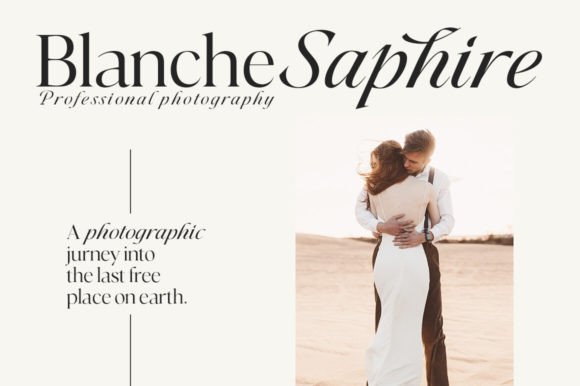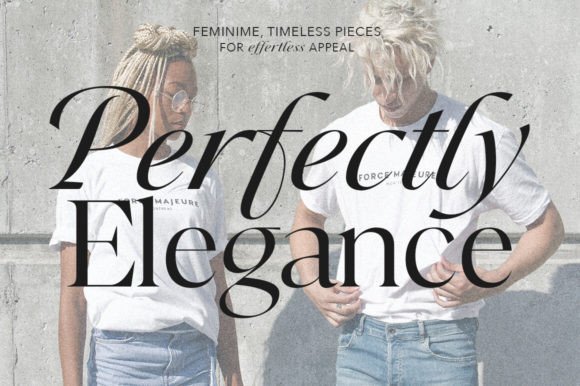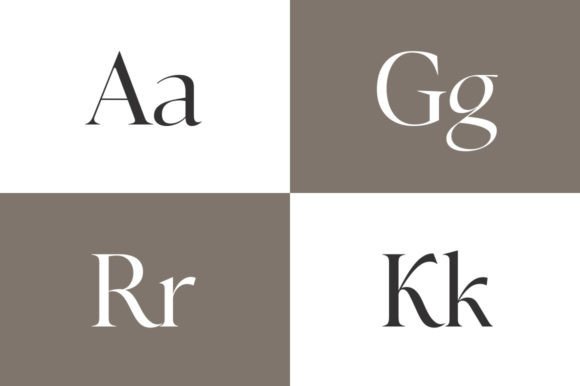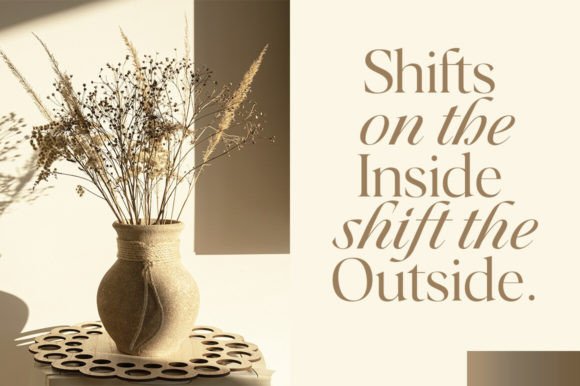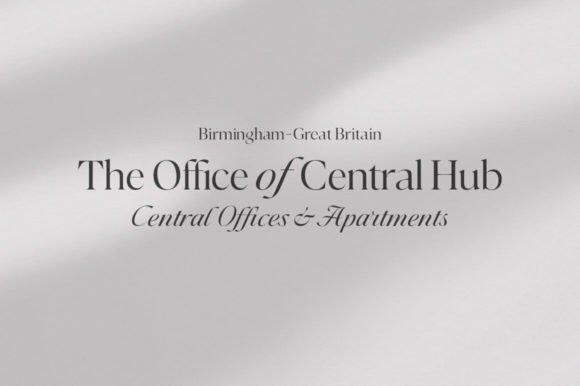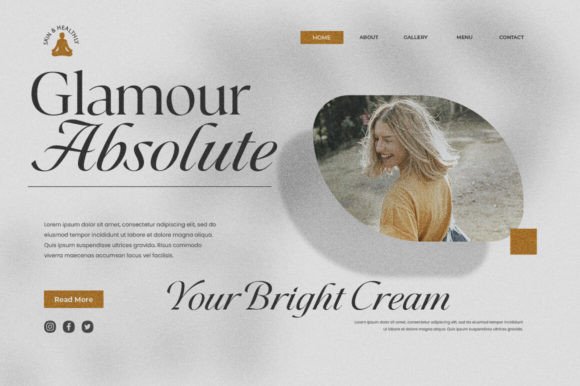
Discover the Elegance of Calserif Font: A Perfect Blend of Classic and Contemporary Design
In the world of typography, fonts play a crucial role in conveying the tone and aesthetic of a design. For designers and crafters looking for a font that combines the timeless elegance of serif fonts with the fluidity of calligraphy, Calserif Font is an excellent choice. This unique font family merges classic elements with modern designs, offering two distinct versions: regular serif styles and italic calligraphy styles.
What is Calserif Font?
Calserif is a thoughtfully crafted font family that brings together the traditional appeal of serif fonts and the artistic flair of calligraphy. This blend allows designers to create works that are not only nostalgic but also clean and elegant. The Calserif Font family includes two main styles:
• Regular Serif Styles: These are perfect for designs that require a classic touch. The serif elements provide a sense of tradition and reliability, making them suitable for a wide range of applications, from editorials to packaging.
• Italic Calligraphy Styles: For projects that need a bit more flair, the italic calligraphy styles offer a beautiful, flowing script that adds elegance and sophistication. These styles are ideal for headlines, invitations, and any design that aims to make a statement.
Key Features of Calserif Font
The Calserif Font stands out for several reasons:
• Versatility: With its two distinct styles, Calserif offers versatility that can cater to a wide array of design needs. Whether you’re working on a magazine, a logo design, or an invitation, this font family has got you covered.
• Elegance: The combination of serif and calligraphy elements gives Calserif an inherently elegant feel. This makes it perfect for designs that aim to convey sophistication and class.
• Readability: Despite its elegant and somewhat ornate appearance, Calserif maintains excellent readability. This is crucial for body text and longer content, ensuring that your message is conveyed clearly.
• Uniqueness: In a sea of commonly used fonts, Calserif offers a unique alternative that can help your designs stand out. Its distinctive blend of styles can add a memorable touch to your work.
Use Cases for Calserif Font
The applications for Calserif Font are vast and varied. Here are some of the most popular use cases:
• Headlines and Titles: The italic calligraphy styles of Calserif are particularly effective for headlines and titles, offering a captivating way to grab attention.
• Magazines and Editorials: For editorial designs, the regular serif styles provide a solid foundation for body text, while the calligraphy styles can be used for section headings or pull quotes.
• Logo Designs: The unique blend of serif and calligraphy elements makes Calserif an excellent choice for logo designs, especially for brands looking to convey elegance and tradition.
• Packaging: For product packaging, Calserif can add a touch of sophistication and class, helping products stand out on store shelves.
• Invitations: The calligraphy styles are particularly suited for invitations, offering a graceful and inviting way to communicate event details.
Calserif Font is a remarkable addition to any designer’s toolkit. Its blend of classic serif elements with the fluidity of calligraphy offers a unique and elegant solution for a wide range of design projects. Whether you’re aiming for nostalgia, elegance, or simply looking for a font that stands out, Calserif is well worth considering. With its versatility, readability, and distinctive style, Calserif Font is poised to become a go-to choice for designers and crafters looking to elevate their work.